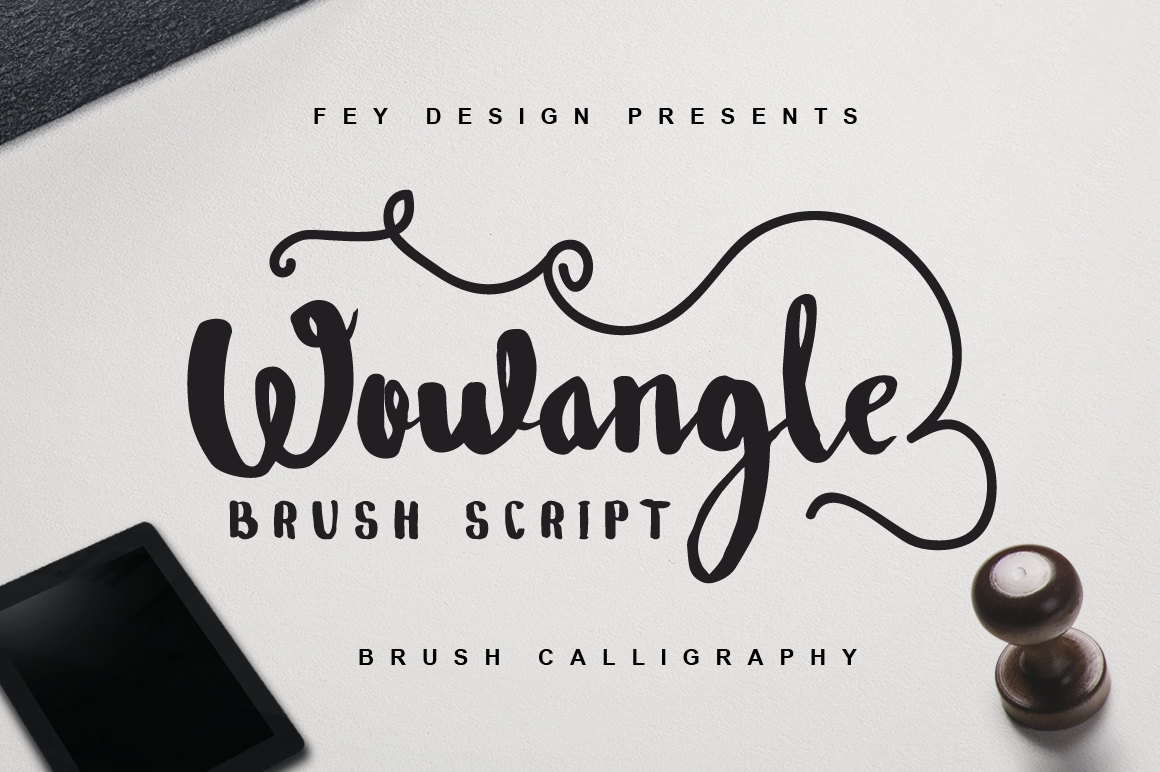
Wowangle Brush Script (Bonus Font)
This is Handrawn Brush Font, Modern Vintage Calligraphy style, Suitable for design, element design, wedding, event, t-shirt, logo, badges, sticker, and awesome work, etc...
Combination alternative ligature fonts
Standard Ligatures, Stylistic Set, Multilanguage Characters
Modern Calligraphy Typeface
Unique style fonts